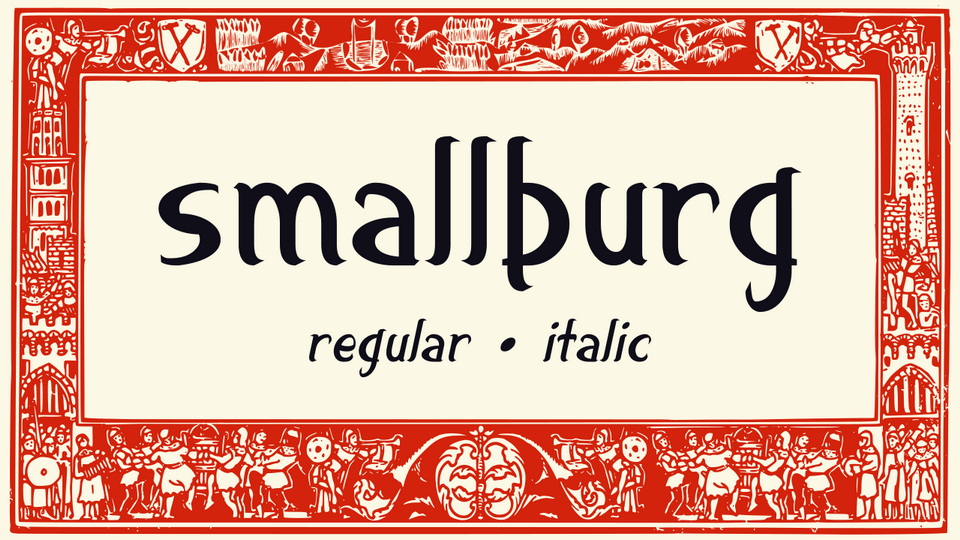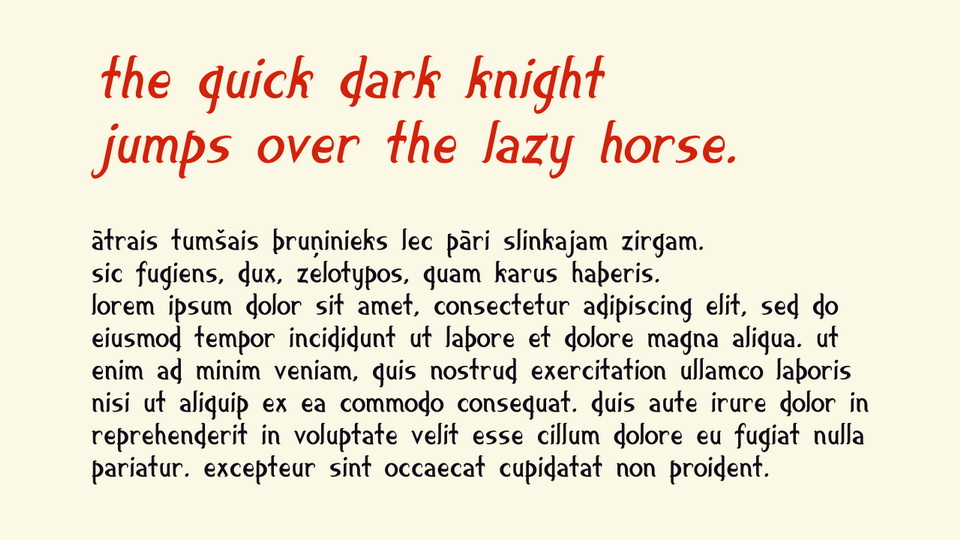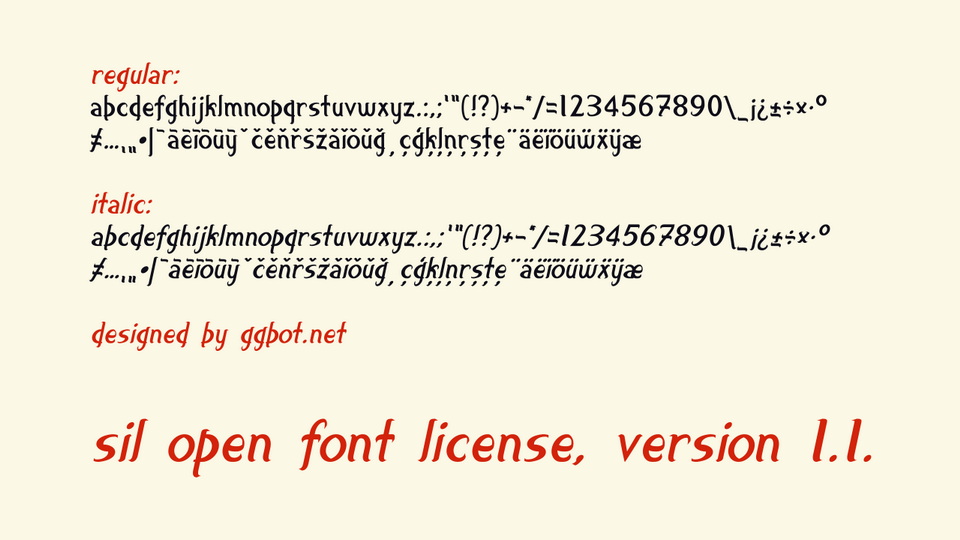
Smallburg is a Celtic-style handwritten font inspired by medieval calligraphy. The typeface comes with Regular and Italic styles, lowercase only.
Smallburg font can be useful to create more antique look of your texts and design.